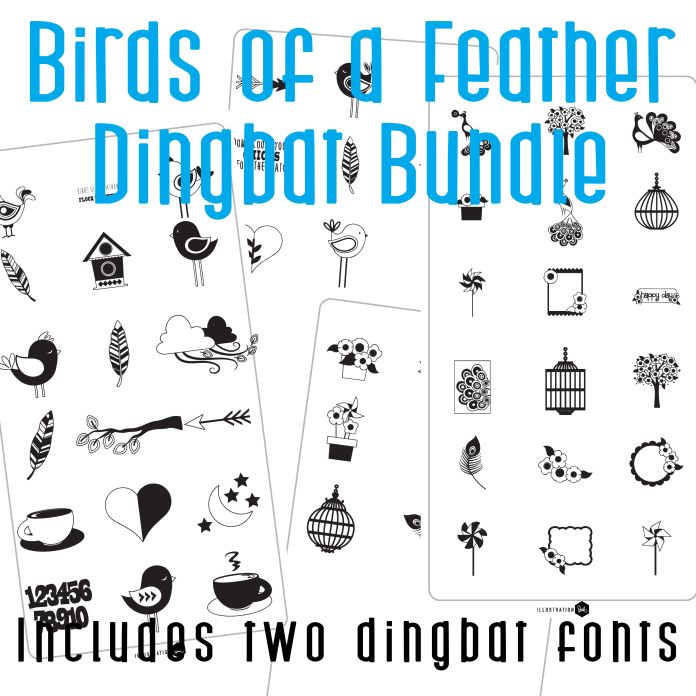
This bundle includes two dingbat fonts for one low price! With two dingbats you get 52 total images of birds, feathers, florals, peacocks, birdcages and more. Perfect for cards, crafts, gifts, decor, classrooms, planner stickers, scrap book pages and more!